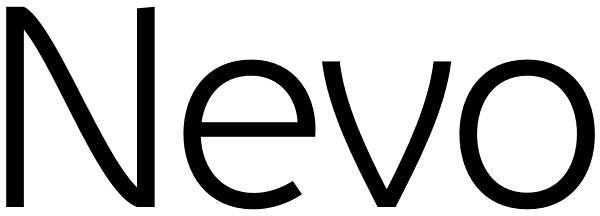
Nevo
Nevo is a 14 style contemporary sans serif designed by Stew Deane. Nevo was specifically designed for a premium feel that is suitable for anything from advertising and branding to web and screen. Its versatility comes from the minimal, subtly unique...